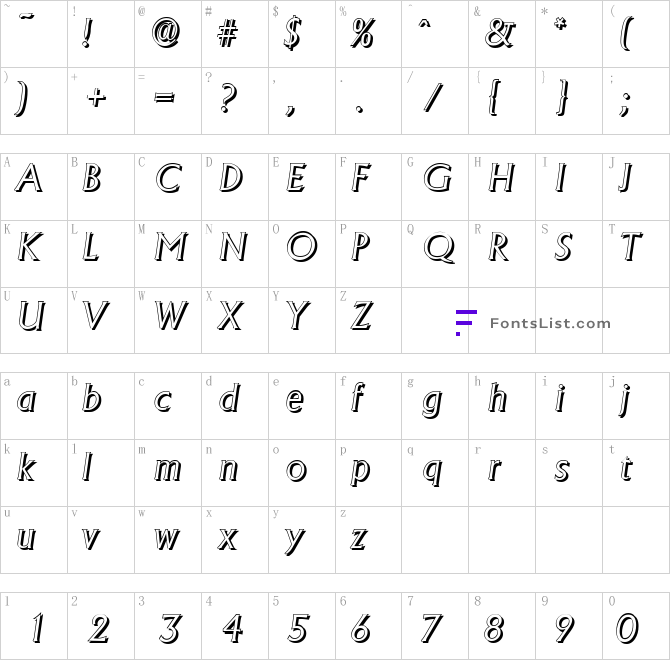
- Font Name:AdelonShadow-Light
- Subfamily:SoftMaker Software GmbH AdelonShadow-Light-Italic
- Full Name:AdelonShadow-Light-Italic
AdelonShadow-Light-Italic.ttf is a very beautiful artistic font, AdelonShadow-Light-Italic.ttf is widely used in the design and printing of various books and pictures,AdelonShadow-Light-Italic.ttf has a strong visual impact,AdelonShadow-Light-Italic.ttf is a commonly used font in newspapers, magazines and books, and is used in posters, e-commerce Poster design, store design, logo design, font design and other fields.AdelonShadow-Light-Italic.